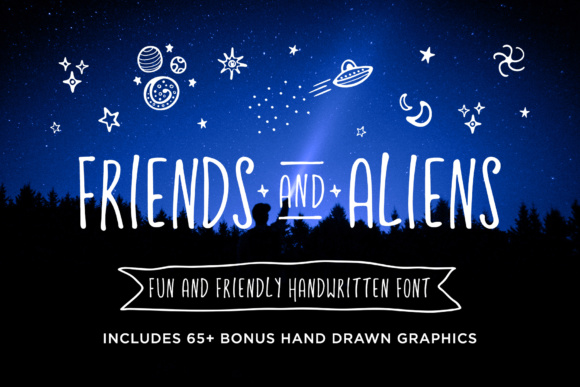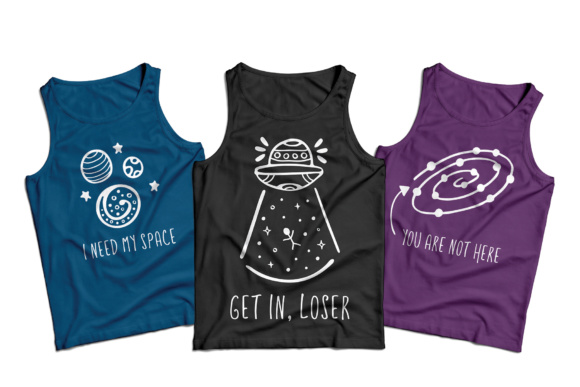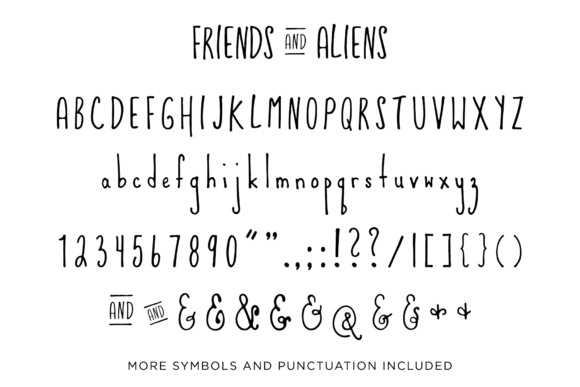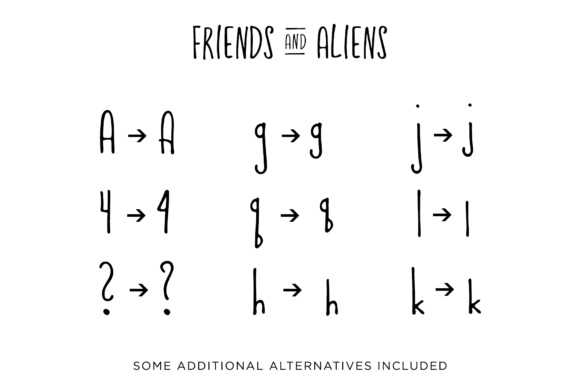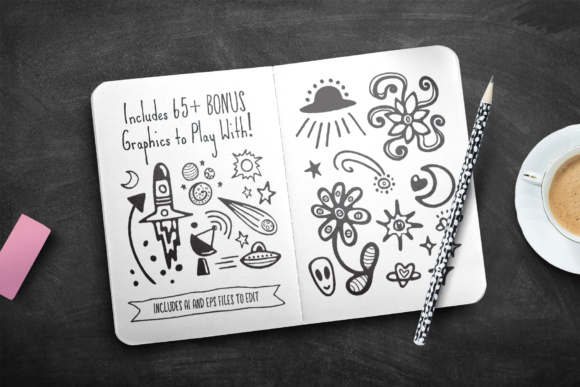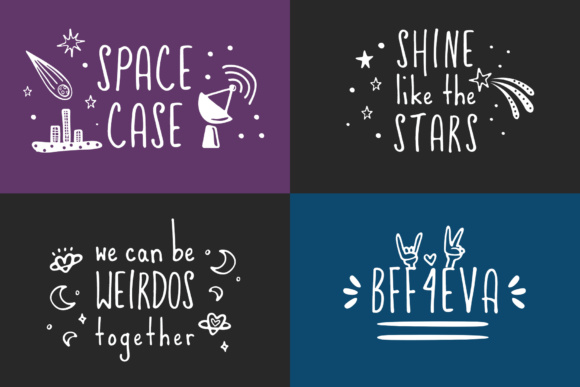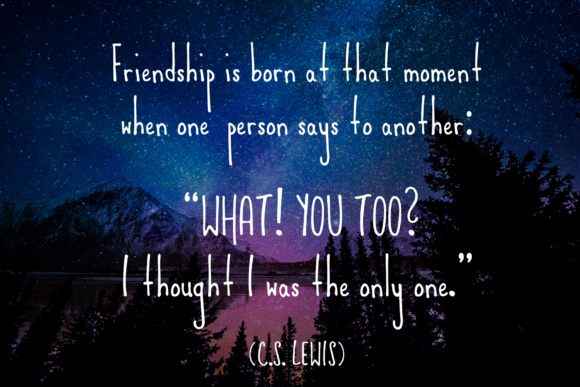
Friends and Aliens Font
About Friends and Aliens Font
Friends and Aliens is a cool, nostalgic alien-themed font, perfect for use in thematic designs! This font comes with symbols that can add some out of this world fun to your creative projects.